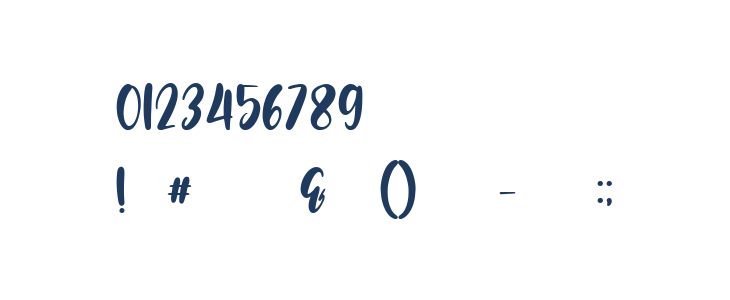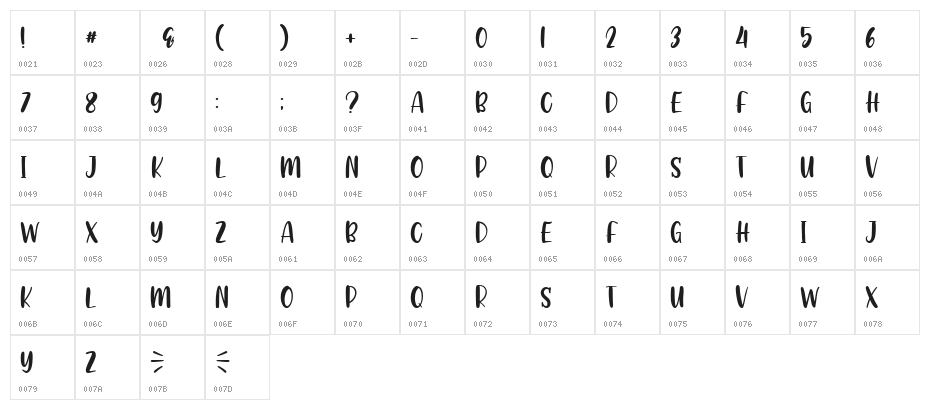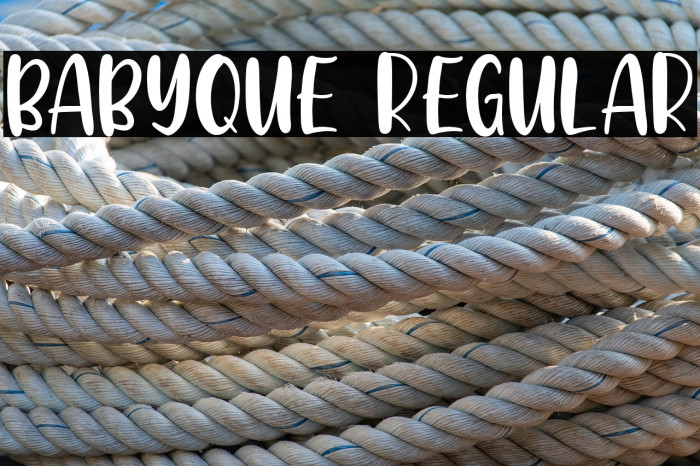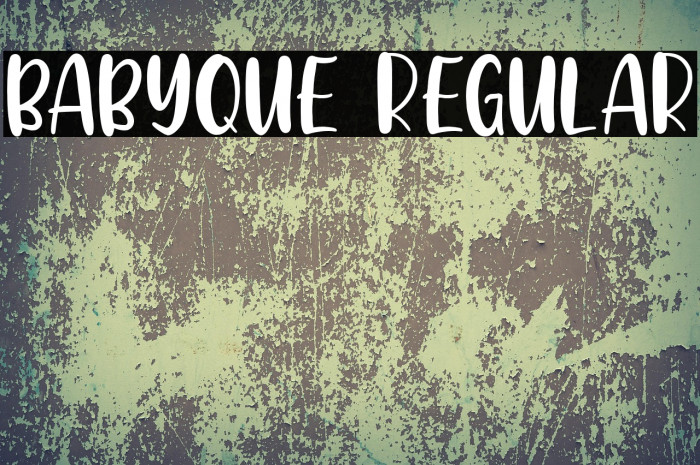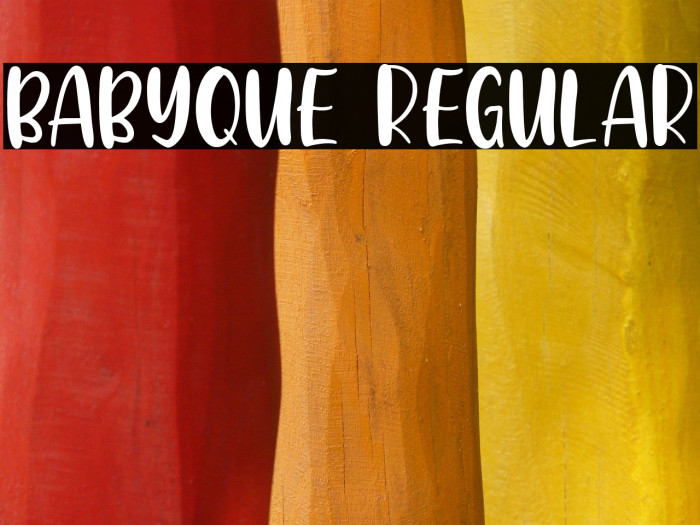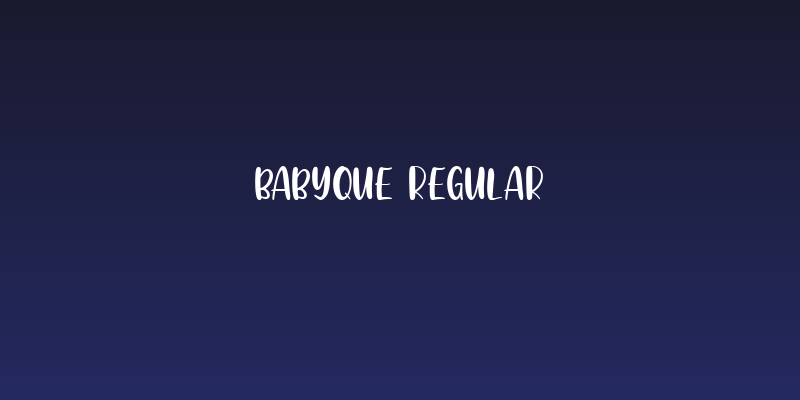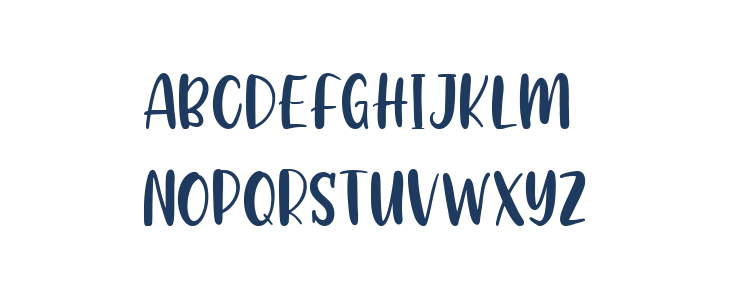
Babyque Regular Font
Babyque Regular Description
This font features a playful and bold handwritten style, characterized by its thick strokes and rounded edges. The letters are slightly slanted, giving it a dynamic and lively appearance. The uppercase and lowercase letters maintain a consistent style, with a smooth flow that mimics natural handwriting. The numbers and special characters are equally expressive, maintaining the same bold and rounded characteristics. This font is perfect for projects that require a personal touch with a modern twist.
| Overall Style | Playful, Modern |
| Proposed Projects | Ideal for greeting cards, children's books, playful branding, and social media graphics. |